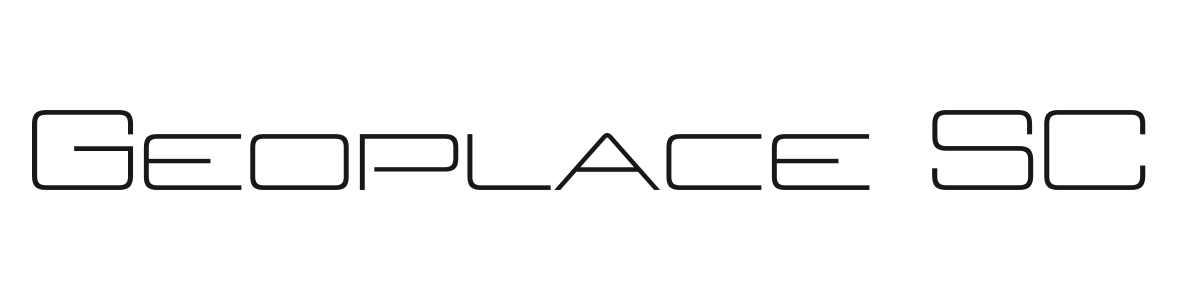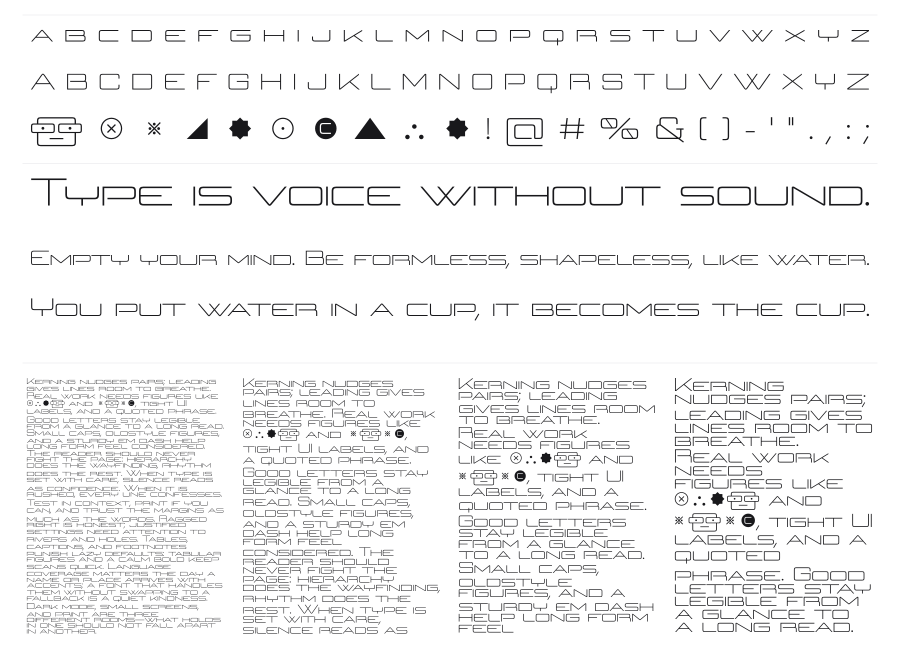
Geoplace SC
Geoplace SC is an expanded geometric sans-serif built around an ultra-thin stroke and small-caps construction. The wide proportions and softly squared geometry give it a spacious, composed presence that reads as quietly luxurious at large sizes. Available in five weights with OpenType alternates, it covers a broad range of refined display applications.